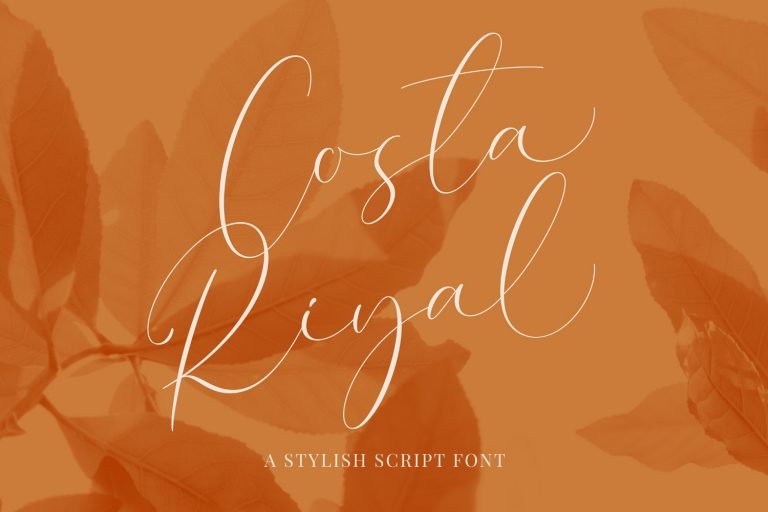
Costa Riyal Font
The most authentic brands in the world share a common quality: they feel genuinely human. Costa Riyal Font brings that human quality to life through its lively, natural handwritten character — a typeface that communicates warmth, authenticity, and creative personality in a way that polished, mechanical fonts simply cannot replicate.
Costa Riyal’s design draws from the spontaneous energy of genuine pen-on-paper handwriting, capturing the delightful irregularities, natural stroke variations, and organic baseline movement that make handwritten text feel alive. Unlike handwriting fonts that over-smooth or over-regularize their letterforms into uniformity, Costa Riyal preserves the authentic character of real handwriting — including the subtle personality quirks that make it feel like it was written by a real, interesting person. The result is a font with genuine warmth and creative credibility that audiences recognize and respond to instinctively.
Café owners and artisan food entrepreneurs love Costa Riyal for café branding, chalkboard menu designs, specialty coffee packaging, baked goods labeling, and the hand-lettered social media content that resonates so strongly with food-loving audiences. Travel bloggers, lifestyle content creators, and tourism brands use Costa Riyal for its ability to evoke adventure, discovery, and the joy of authentic experiences. Artisan product makers — soap makers, candle crafters, jam producers, and handmade goods sellers — find that Costa Riyal’s honest, crafted aesthetic perfectly matches the values of their handmade businesses.
Personal branding professionals, coaches, and independent creative businesses use Costa Riyal to establish a tone of approachable expertise — someone skilled and trustworthy, but also genuinely warm and human.